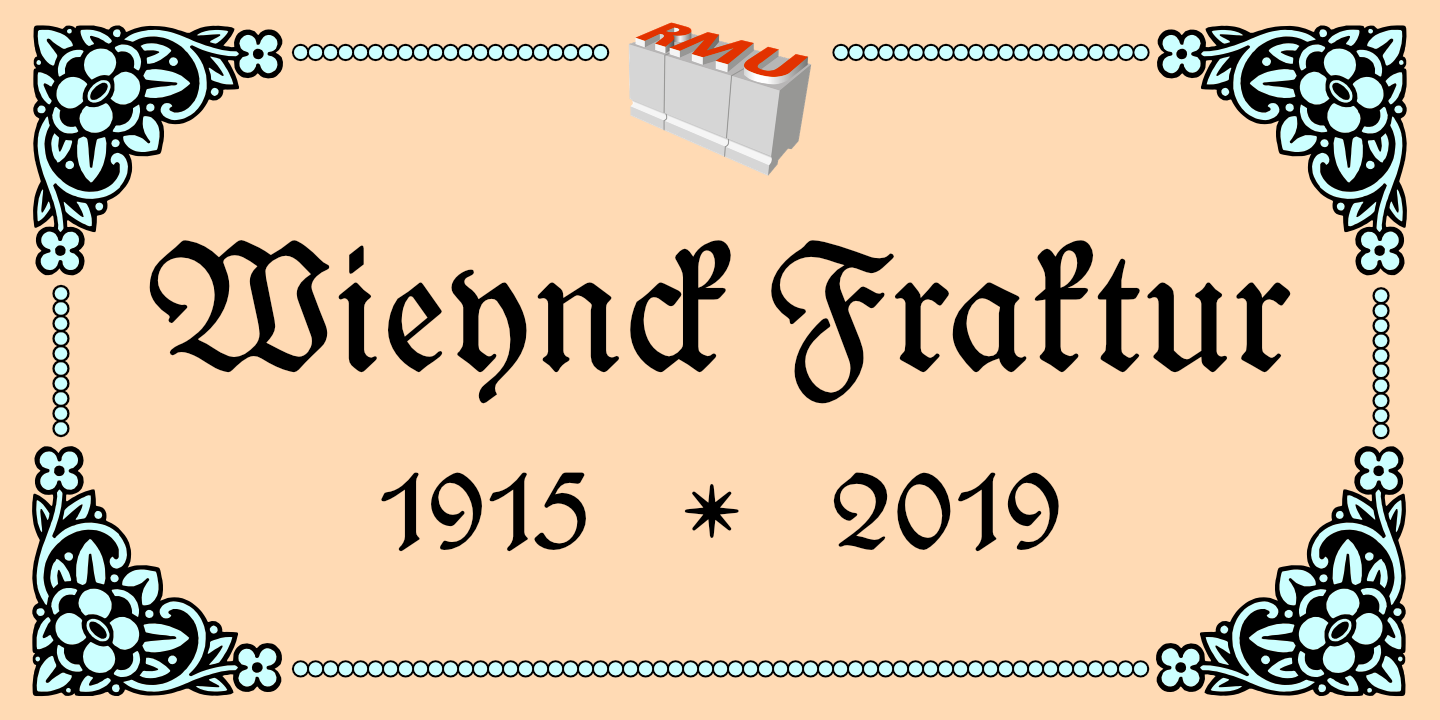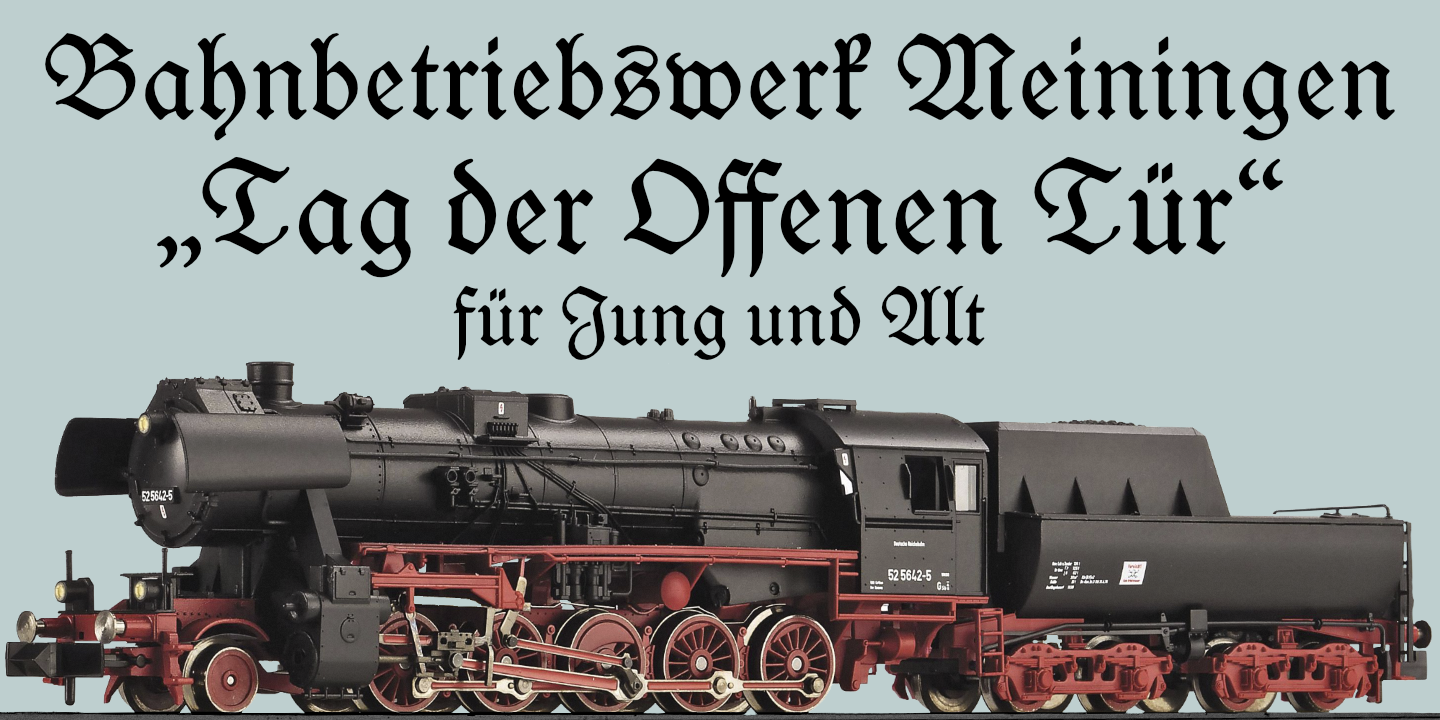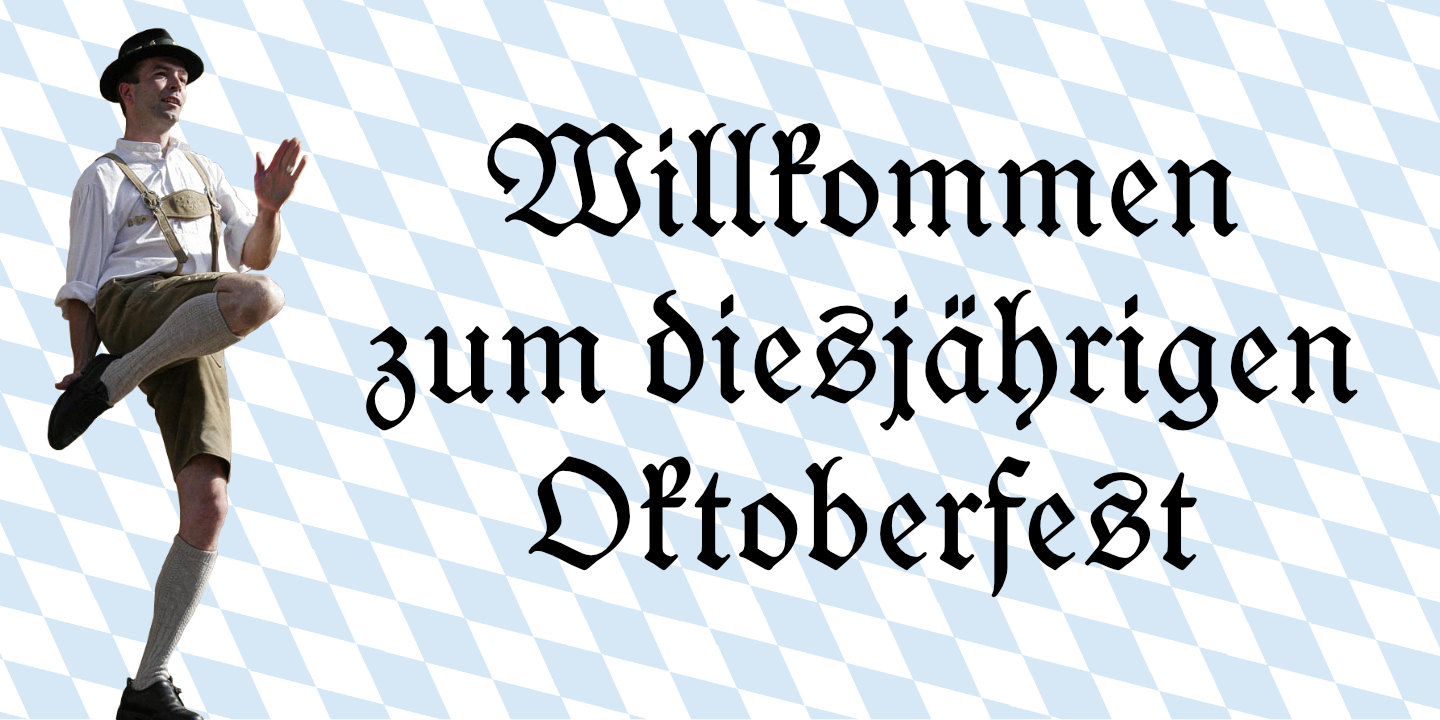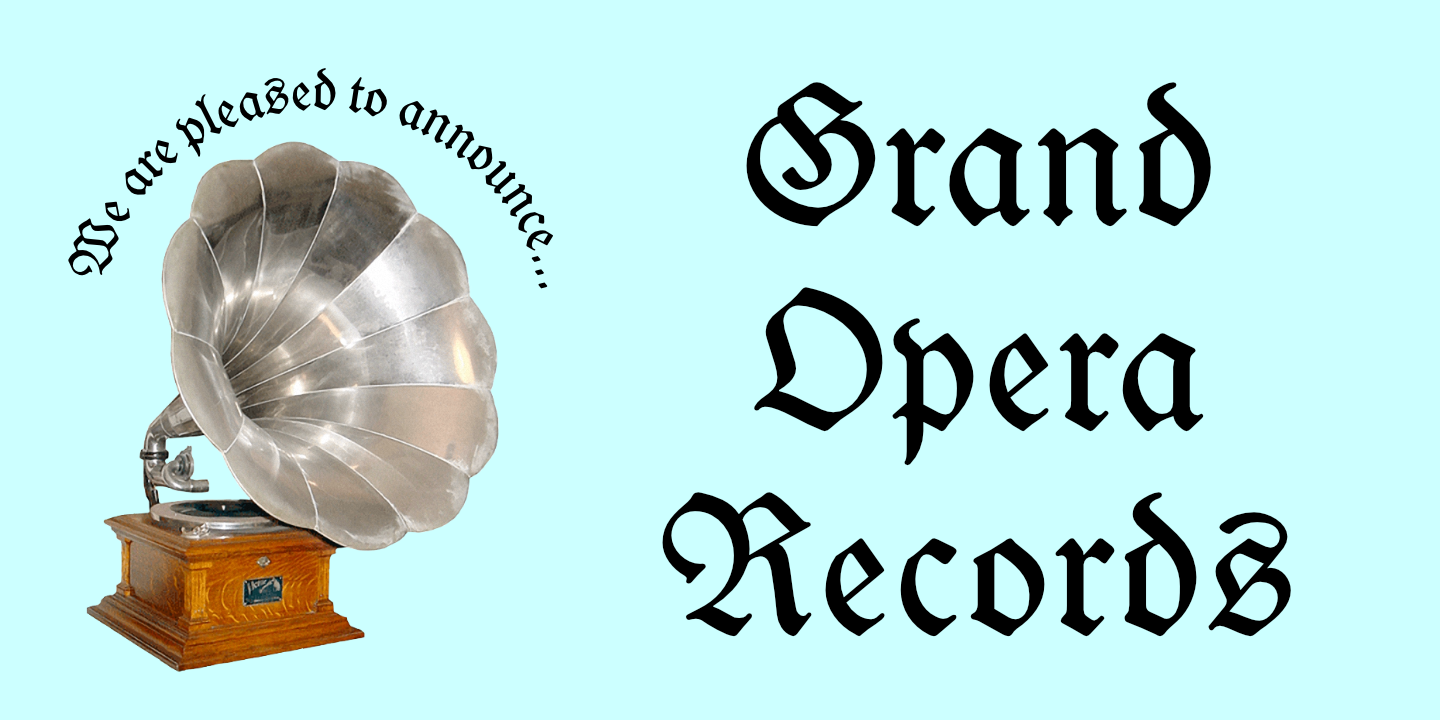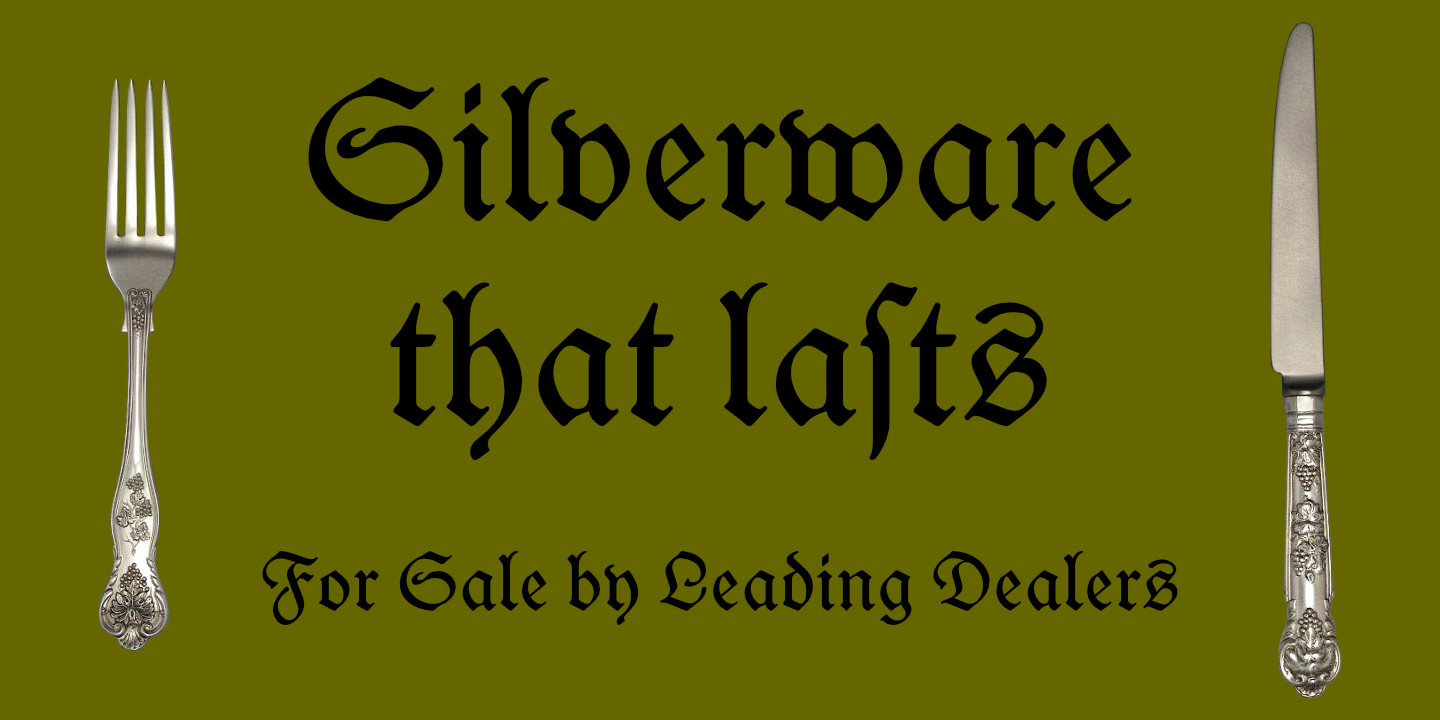
Heinrich Wieynck’s blackletter font, carefully redrawn and redesigned for modern use. Due to its proportions, this blackletter font can also be used for body texts. This font contains the letter ‚long s‘ which can be reached in two ways. Either you use the OpenType feature ‚historical forms‘, or you type the summation sign on your keyboard. There are two graphic elements implemented, a corner element and a pearl for framing. The corner can be set by [alt] + [shift] + 1 for the outline, and [alt] + v for the filling. The pearl, set on a path, is accomplished by [alt] + [shift] + p for the outline, and [alt] + p for the filling.